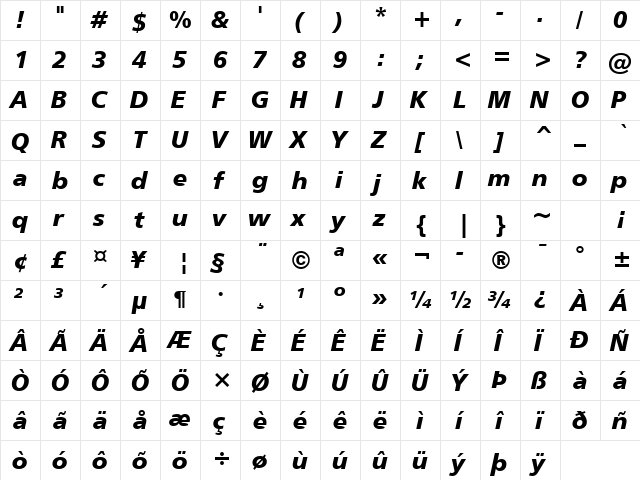
Humnst777 Blk BT Black Italic
Design Context for Humnst777 Blk BT Typeface
Humnst777 Blk BT takes a measured approach to typography — its balanced proportions and neutral character make it a reliable workhorse for both digital and print work. The slanted form adds forward momentum and visual energy.
Pro Tip: Use Humnst777 Blk BT for emphasis, pull quotes, and subheadings where its slanted energy can add rhythm to the layout.